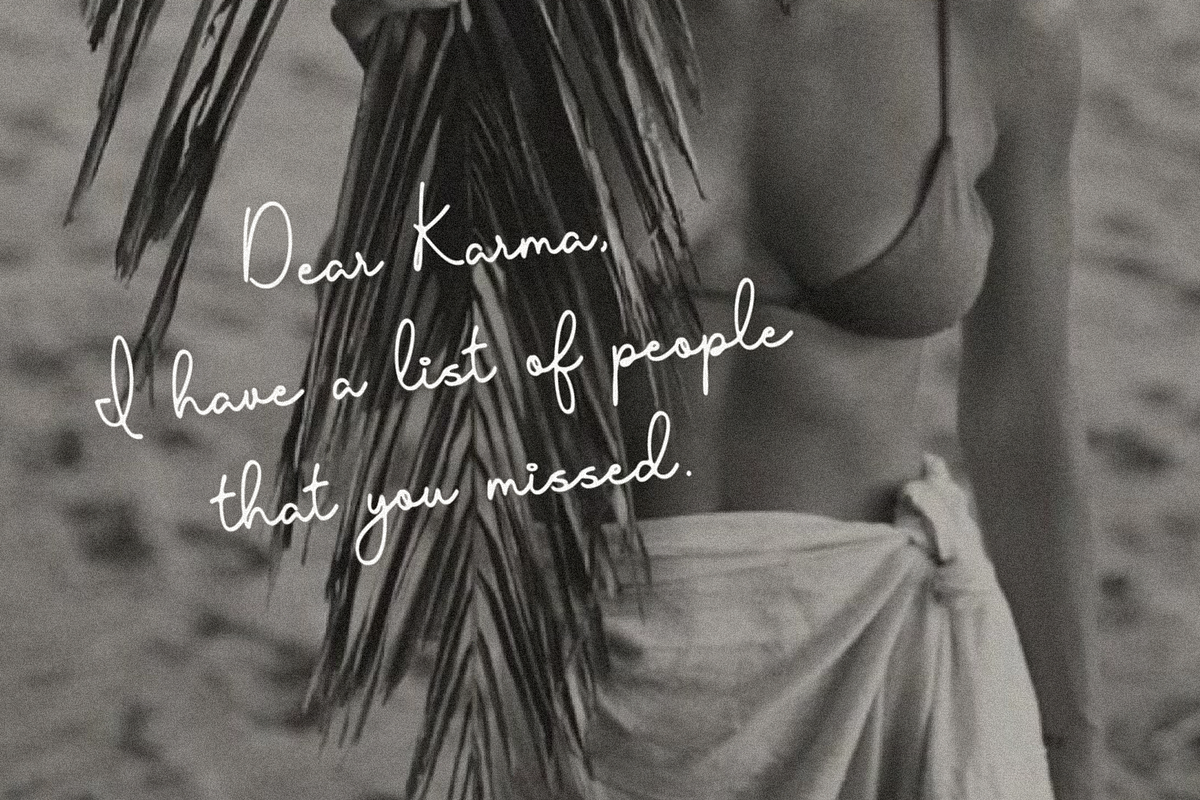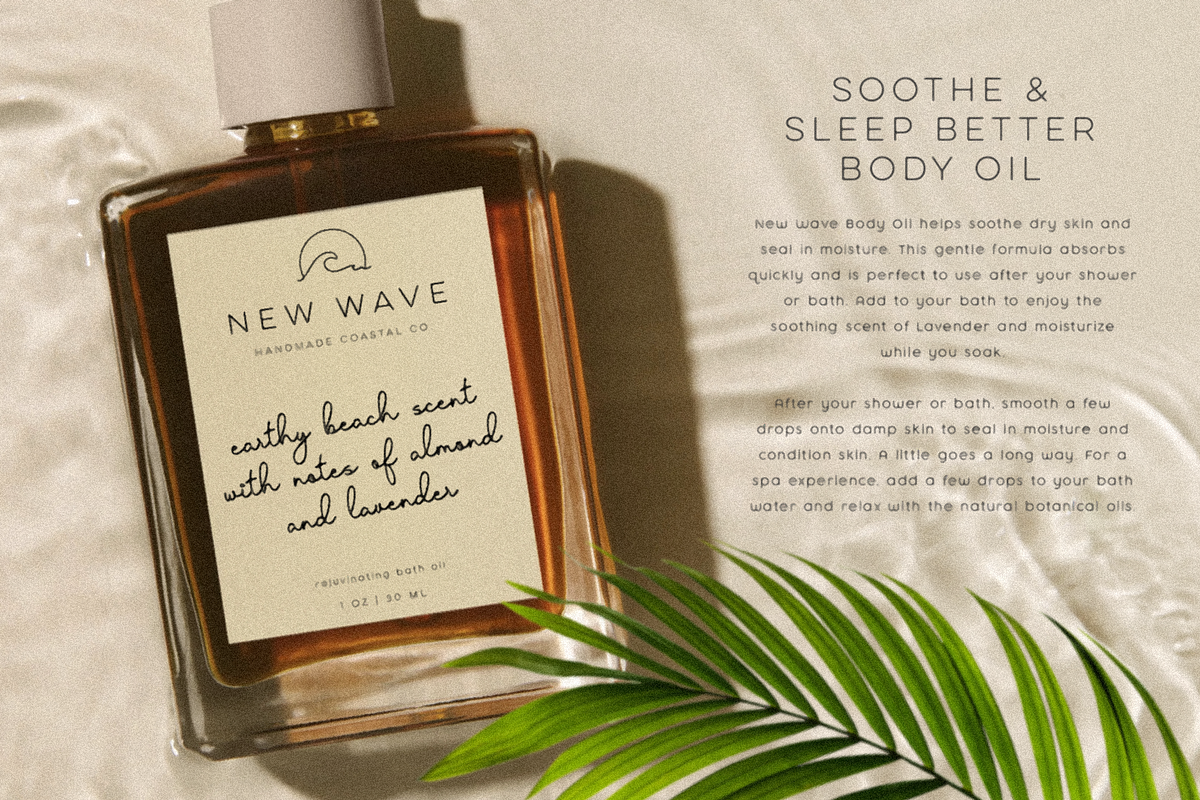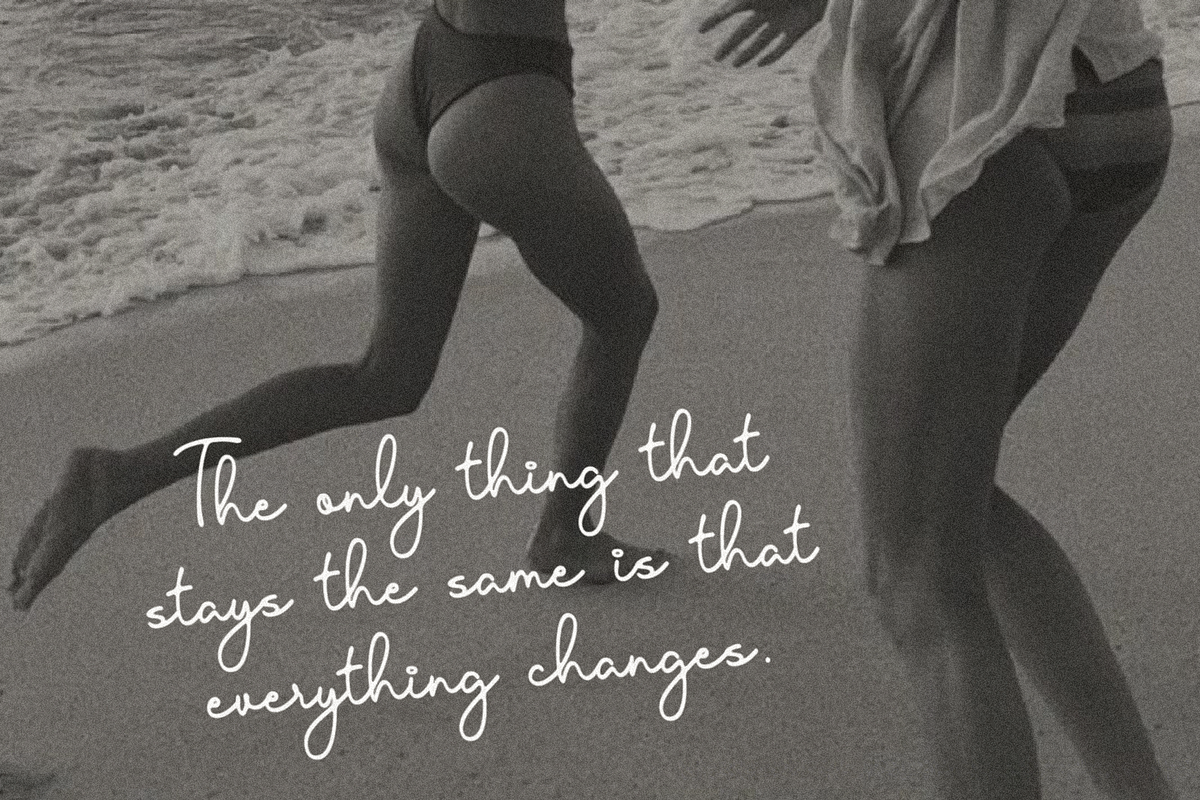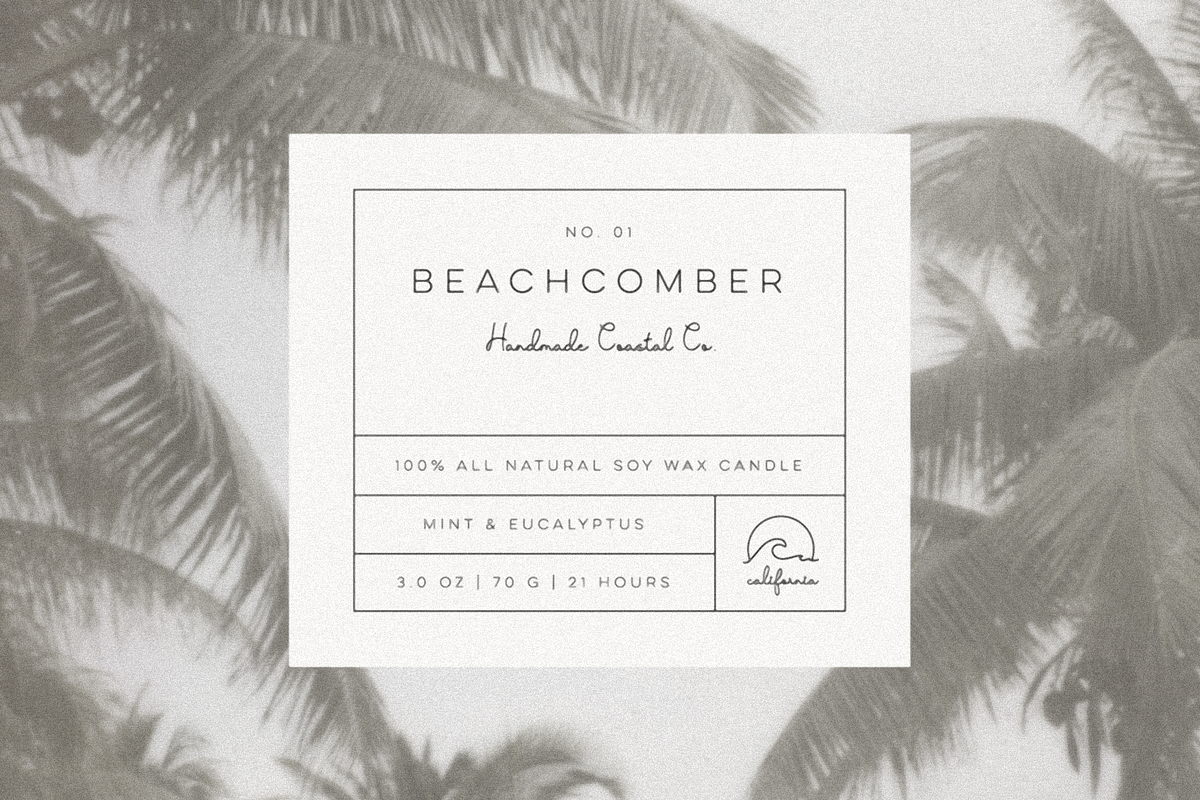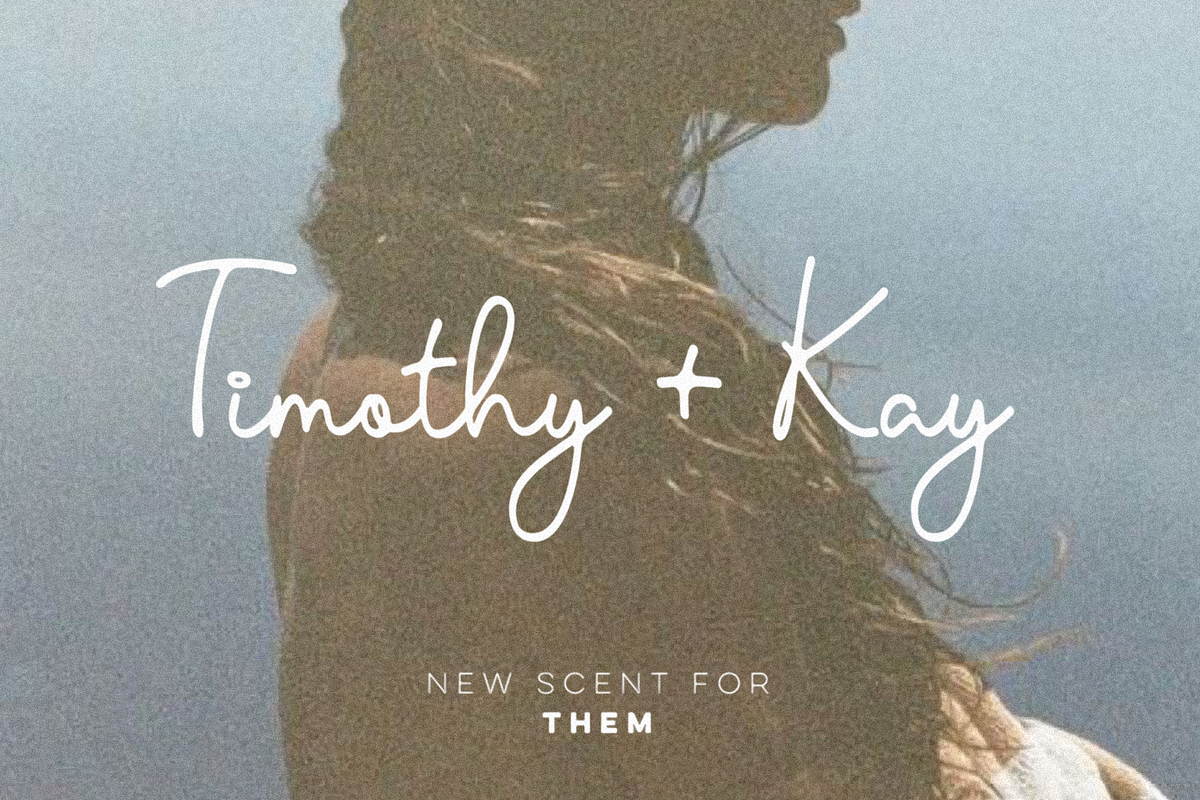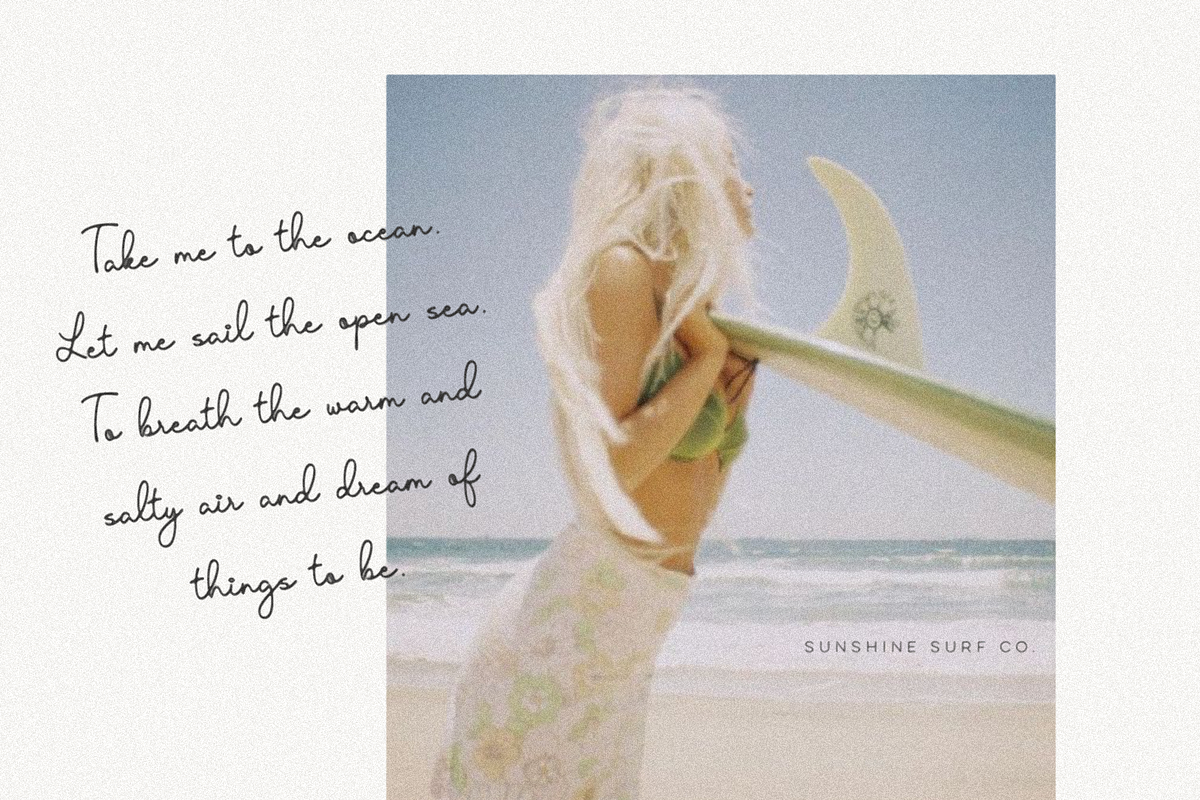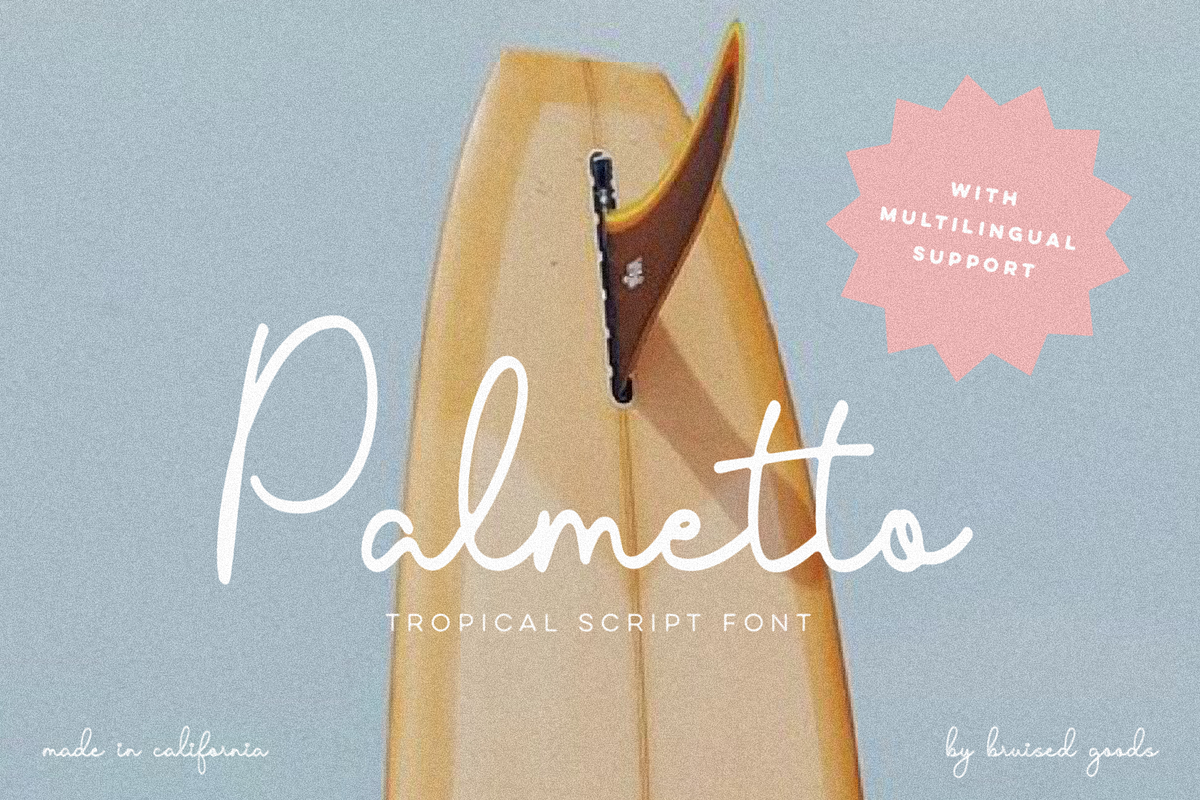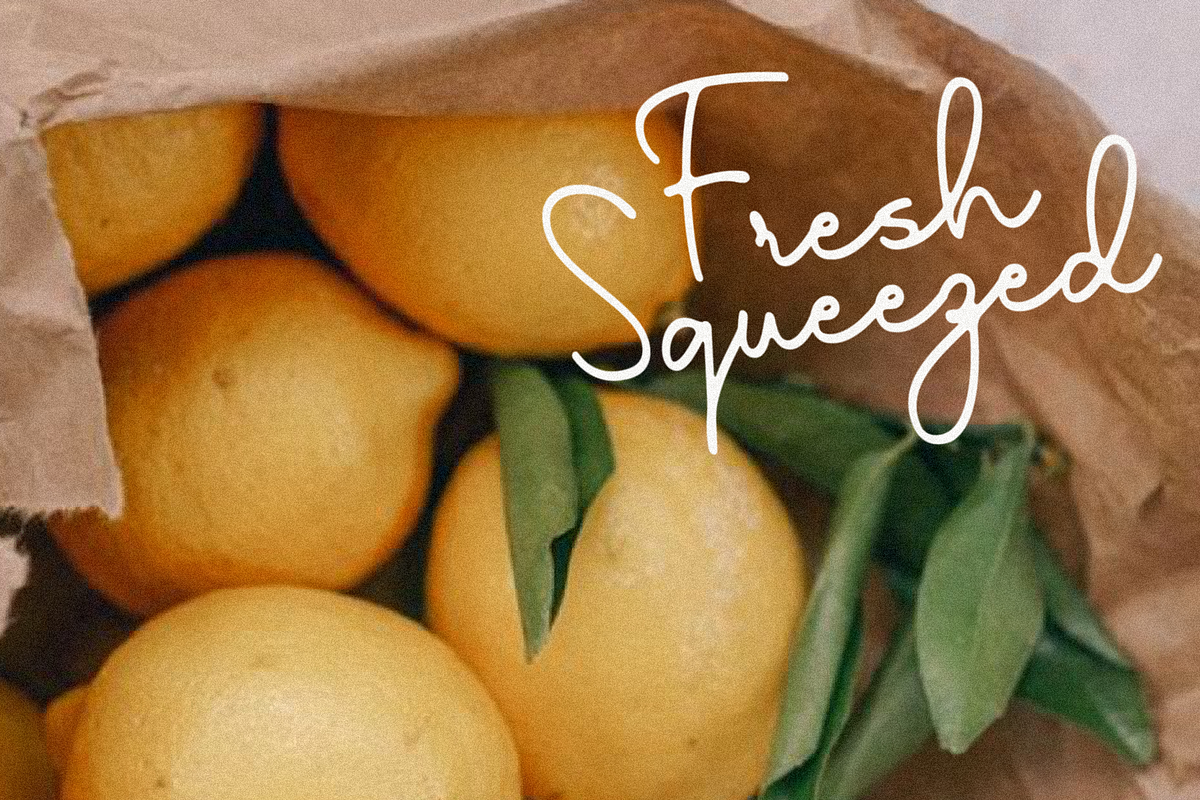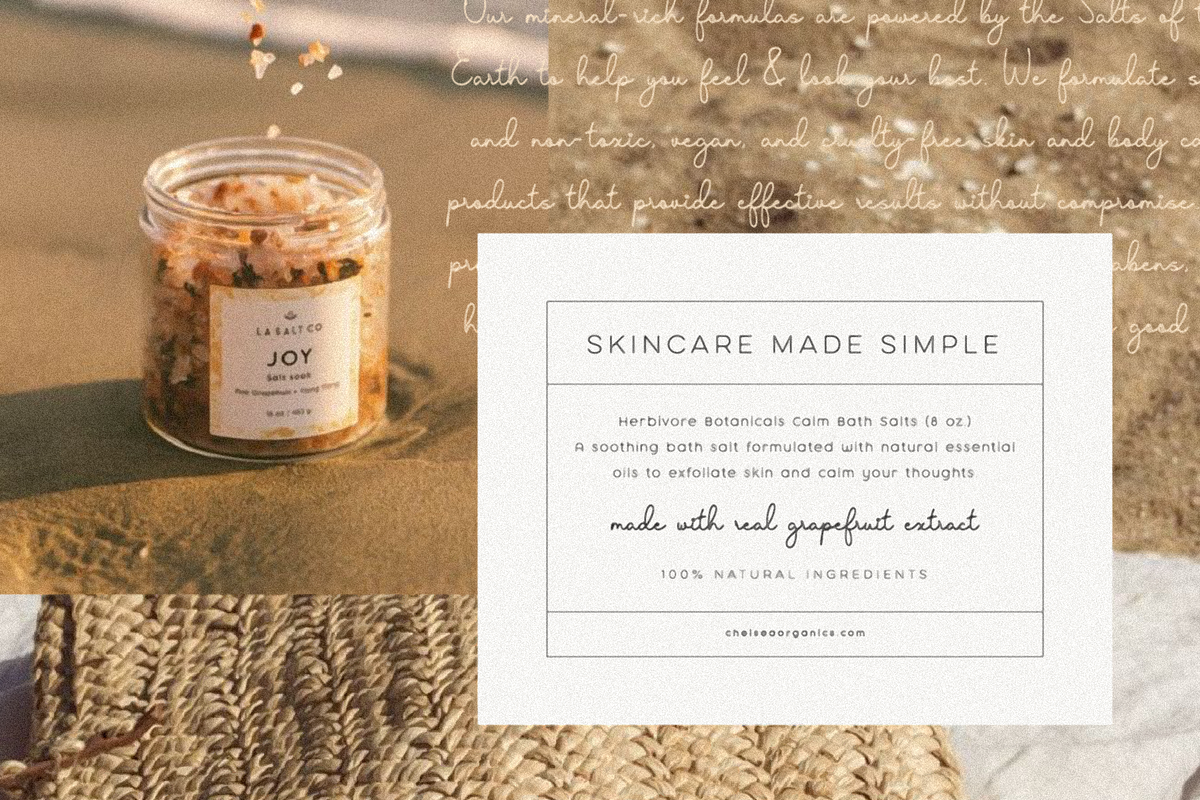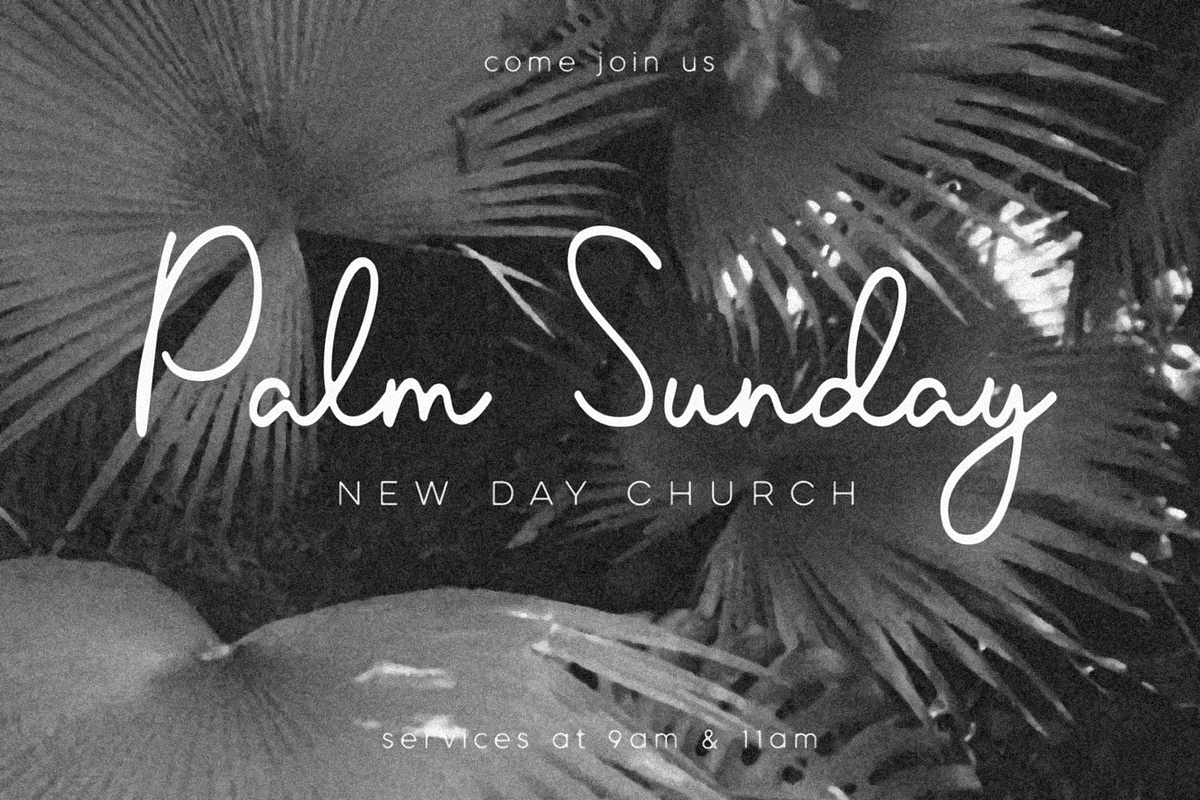
Palmetto
PALMETTO – A tropical script font with multilingual support. Designed by Lauren Kilbane on the California coast.
- 135 Glyphs Total: Uppercase, Lowercase, Numbers, Symbols, Punctuation, & Language Support.